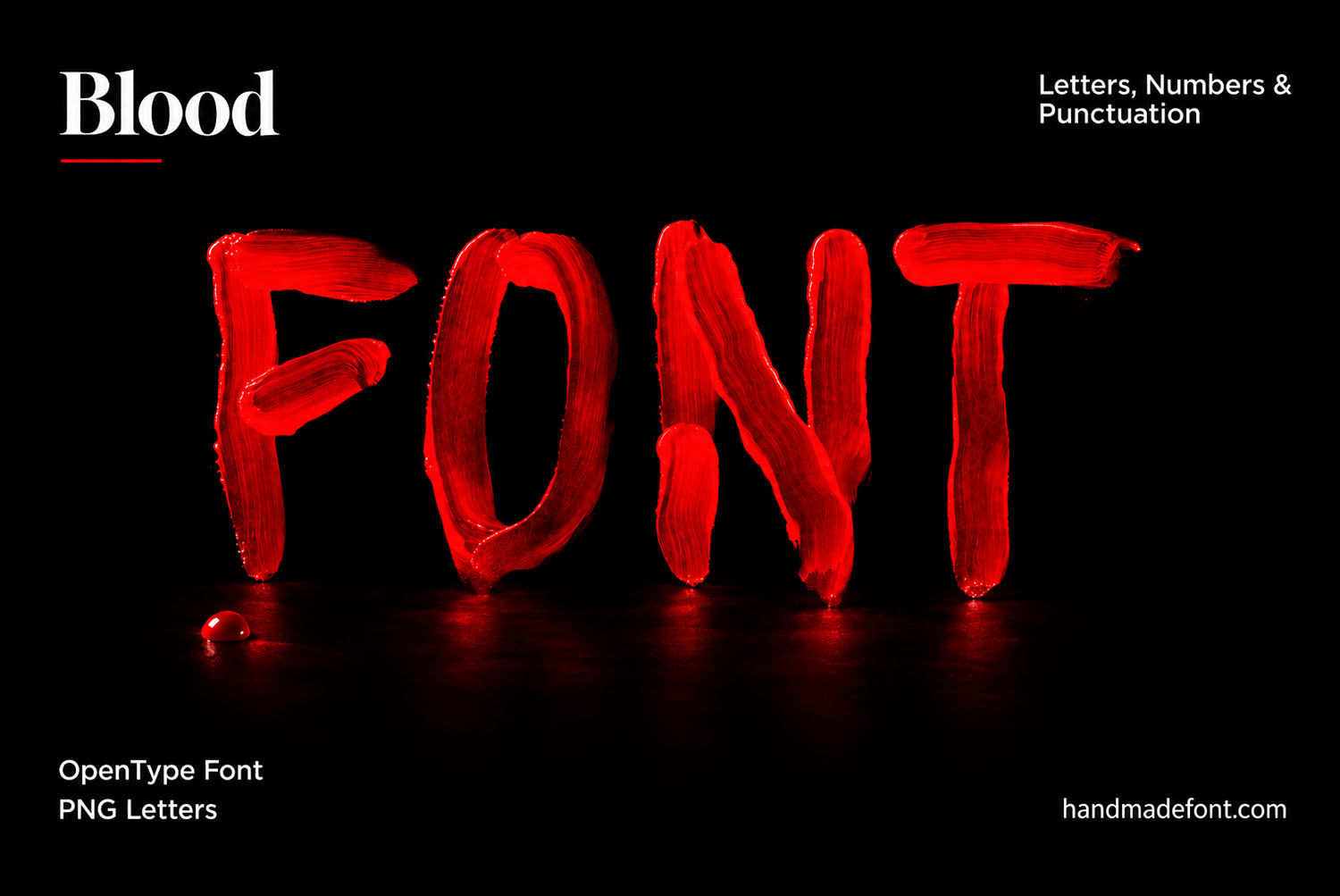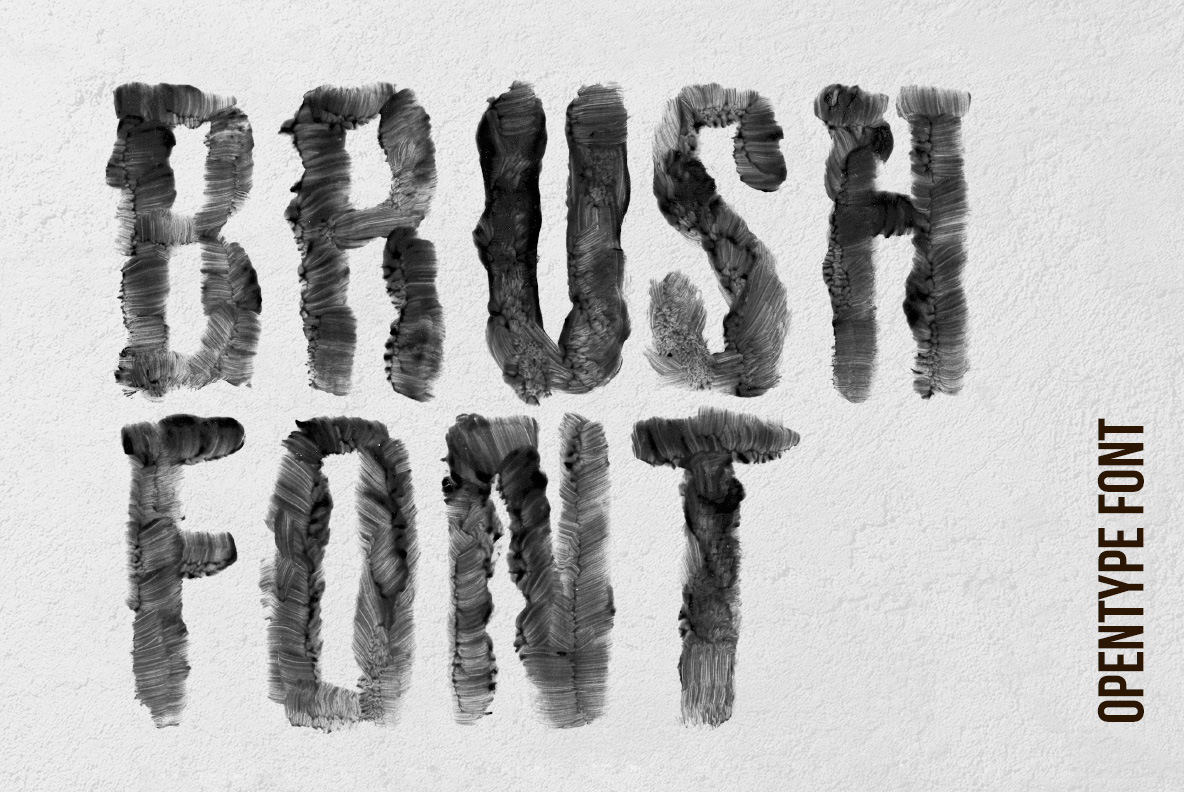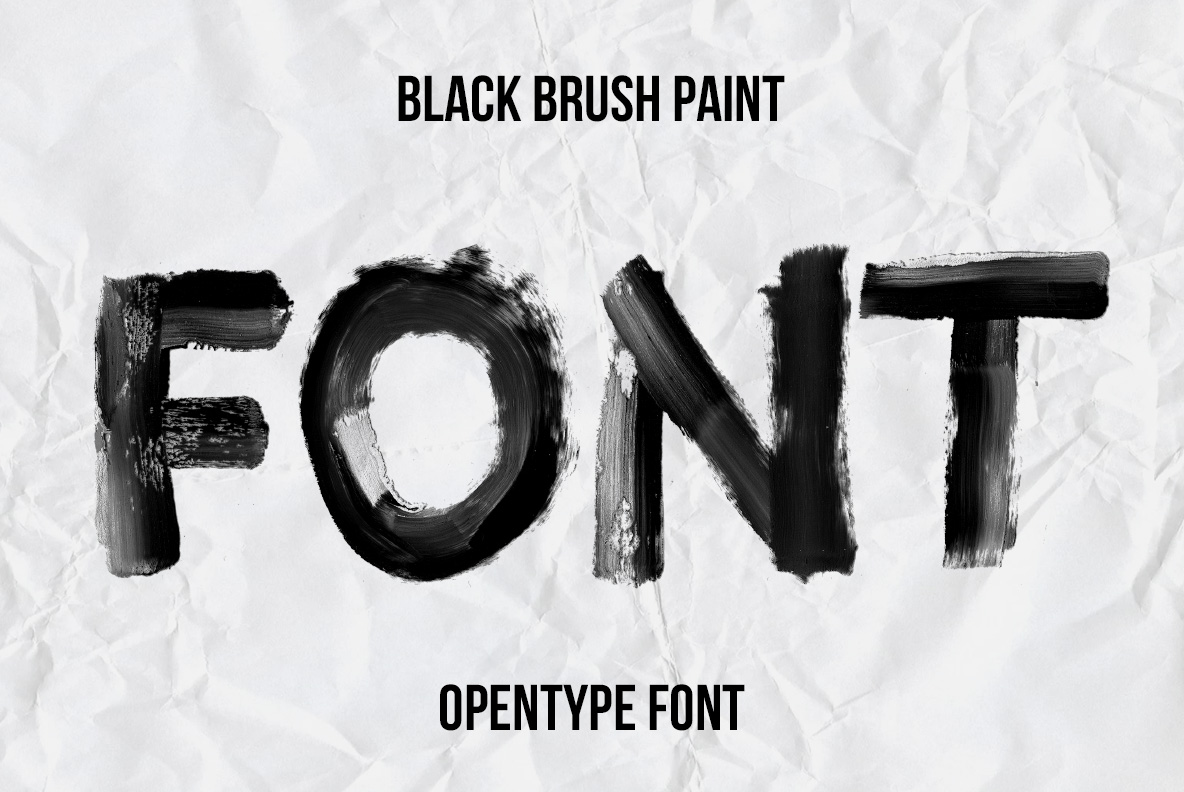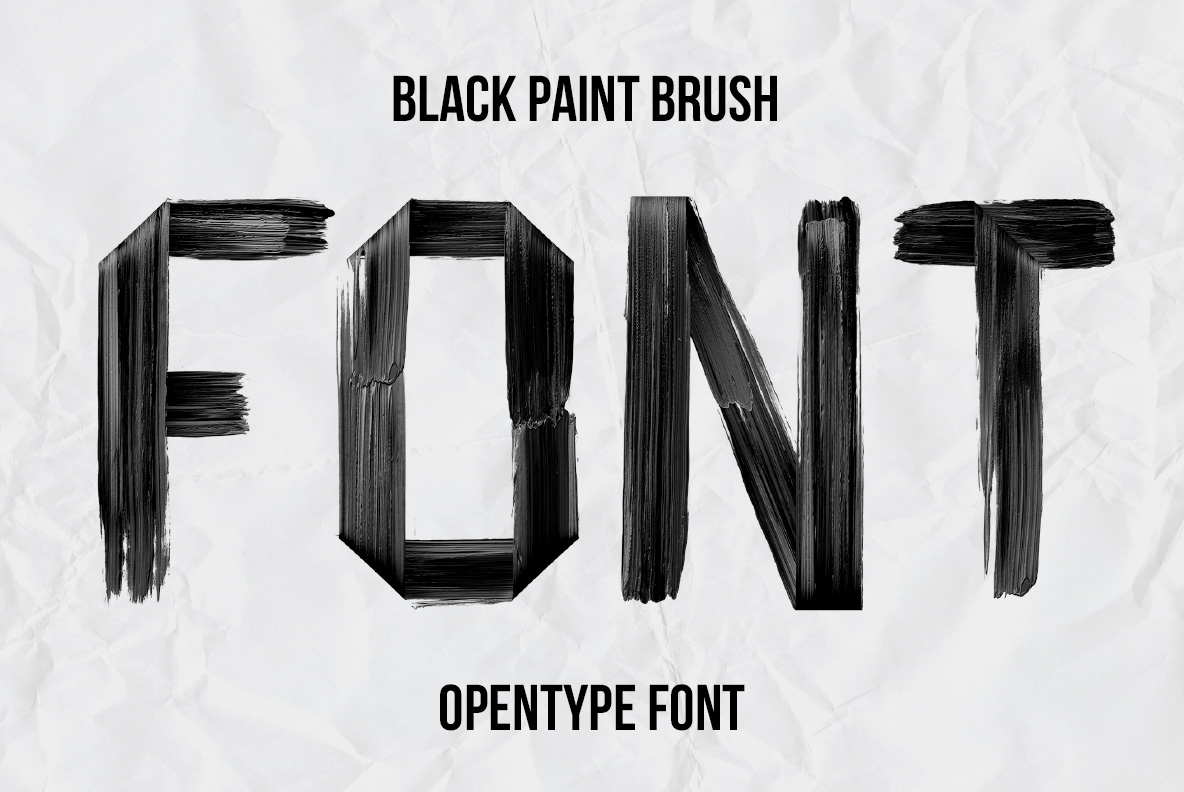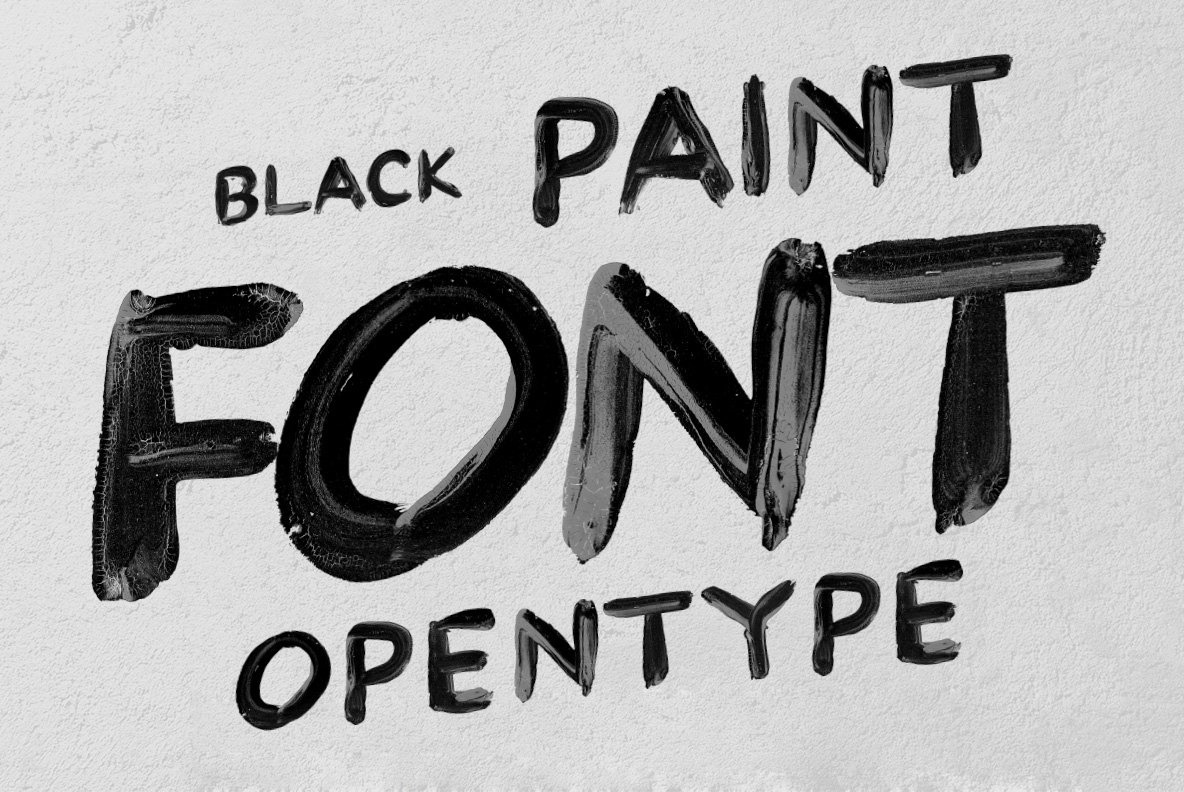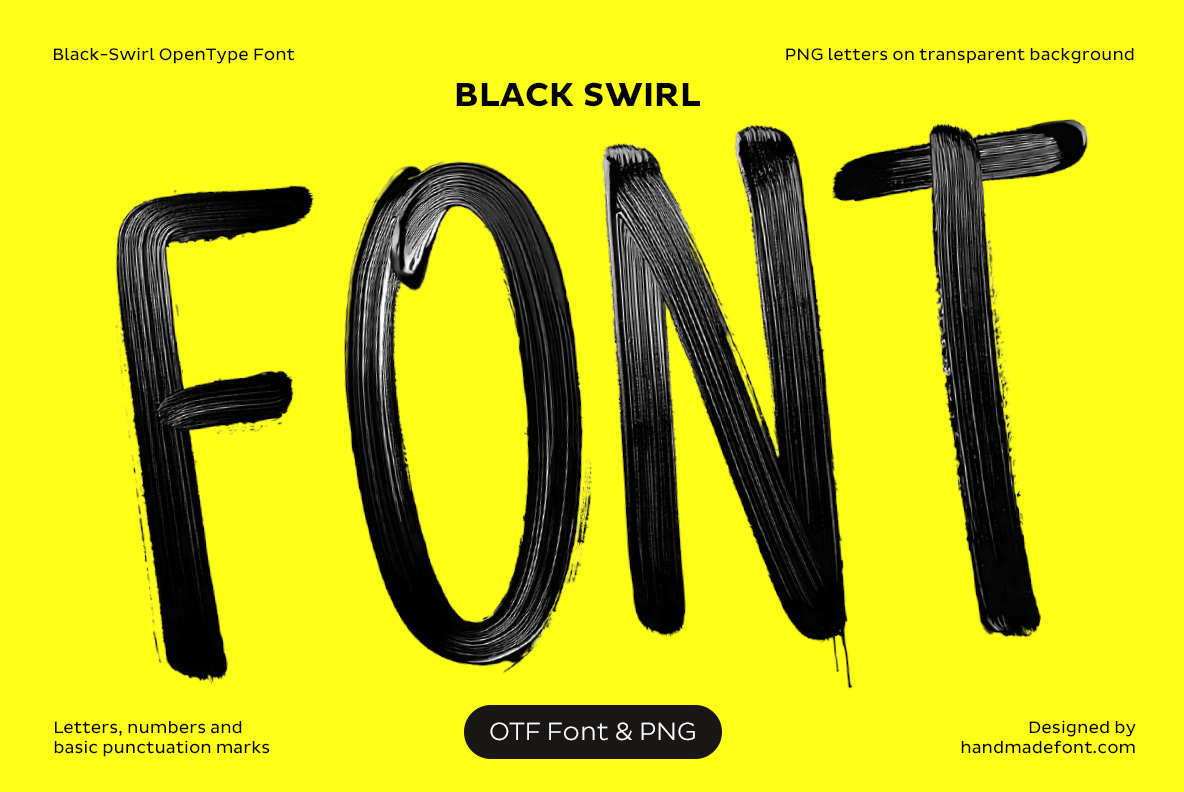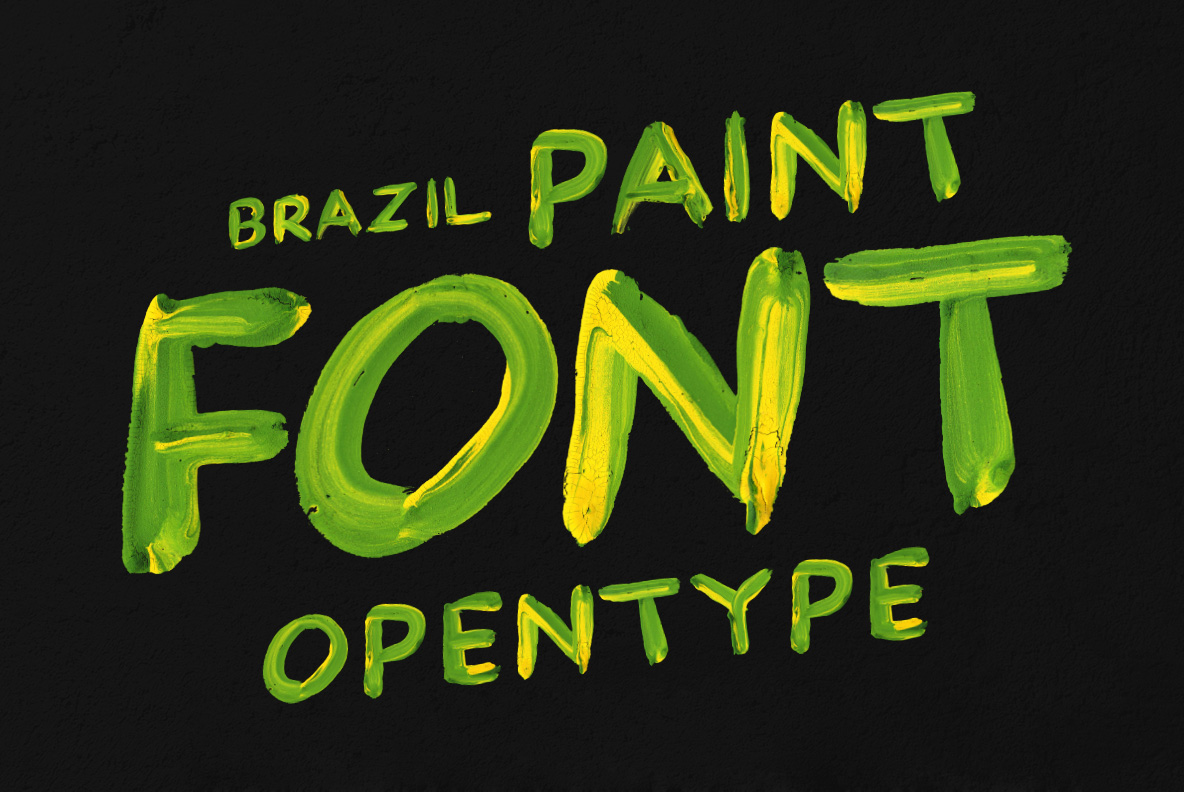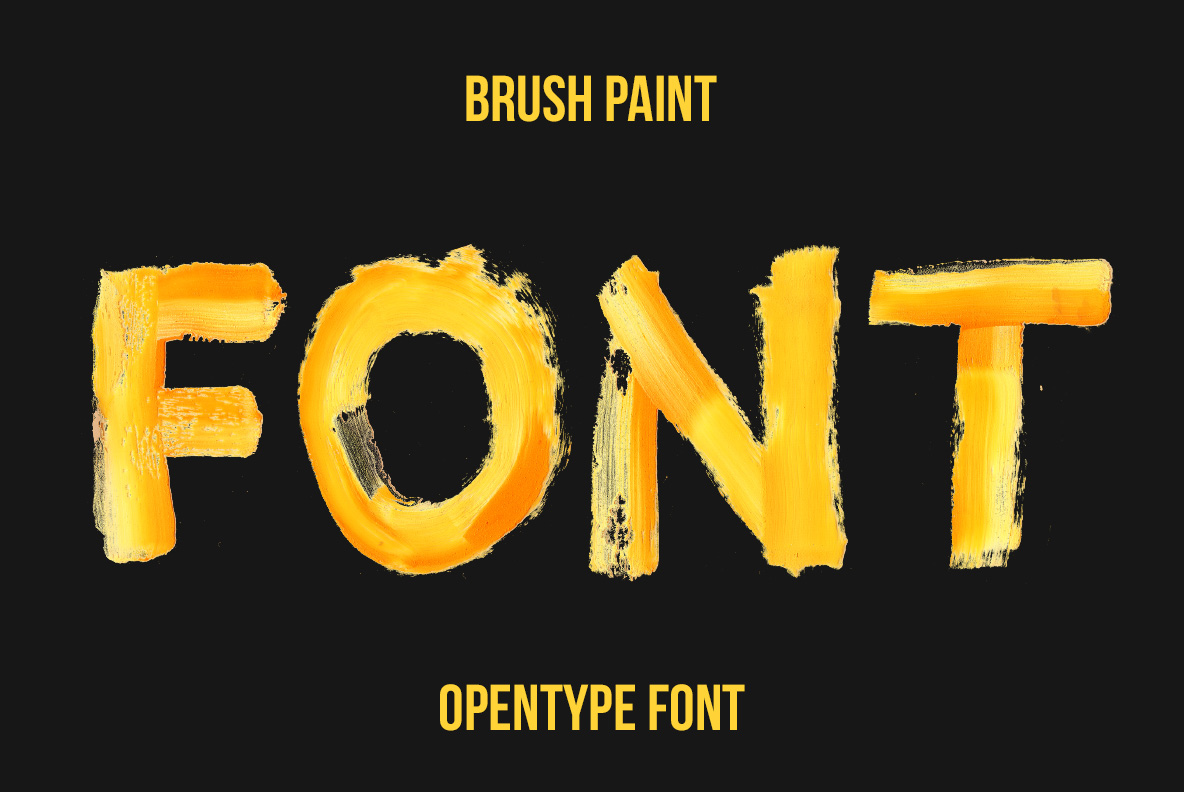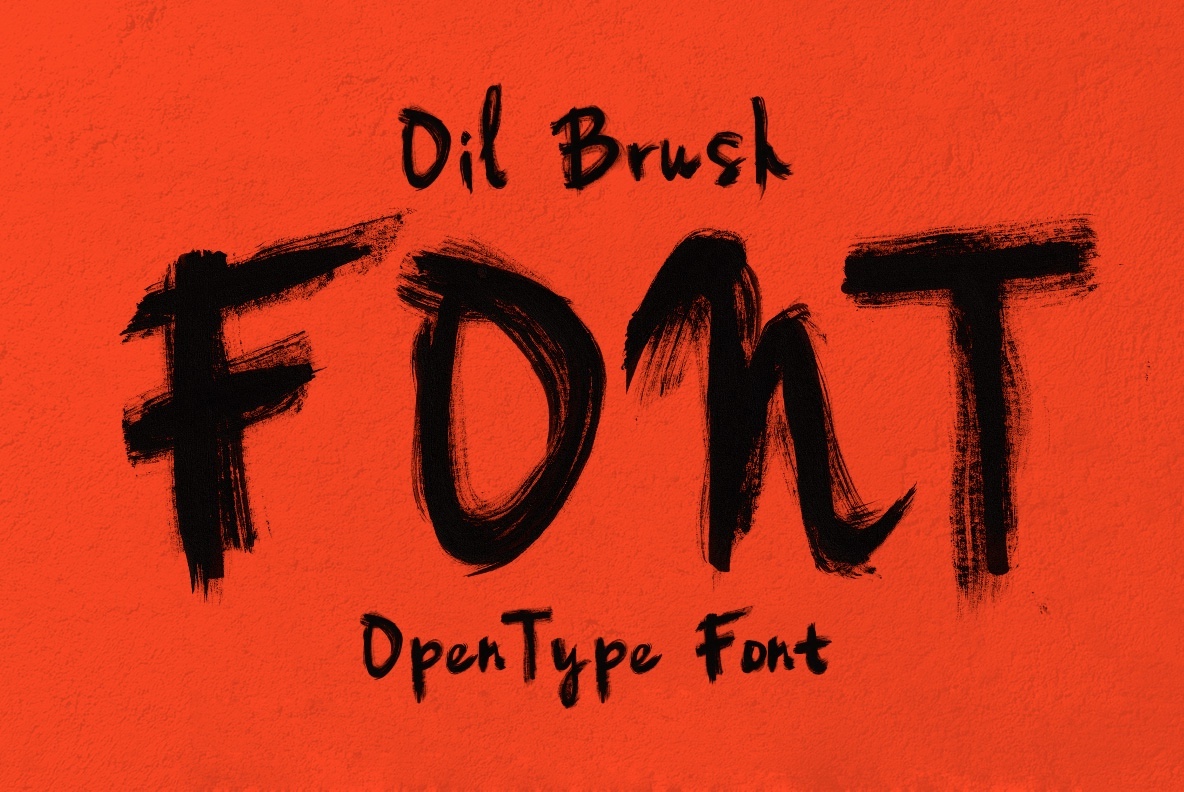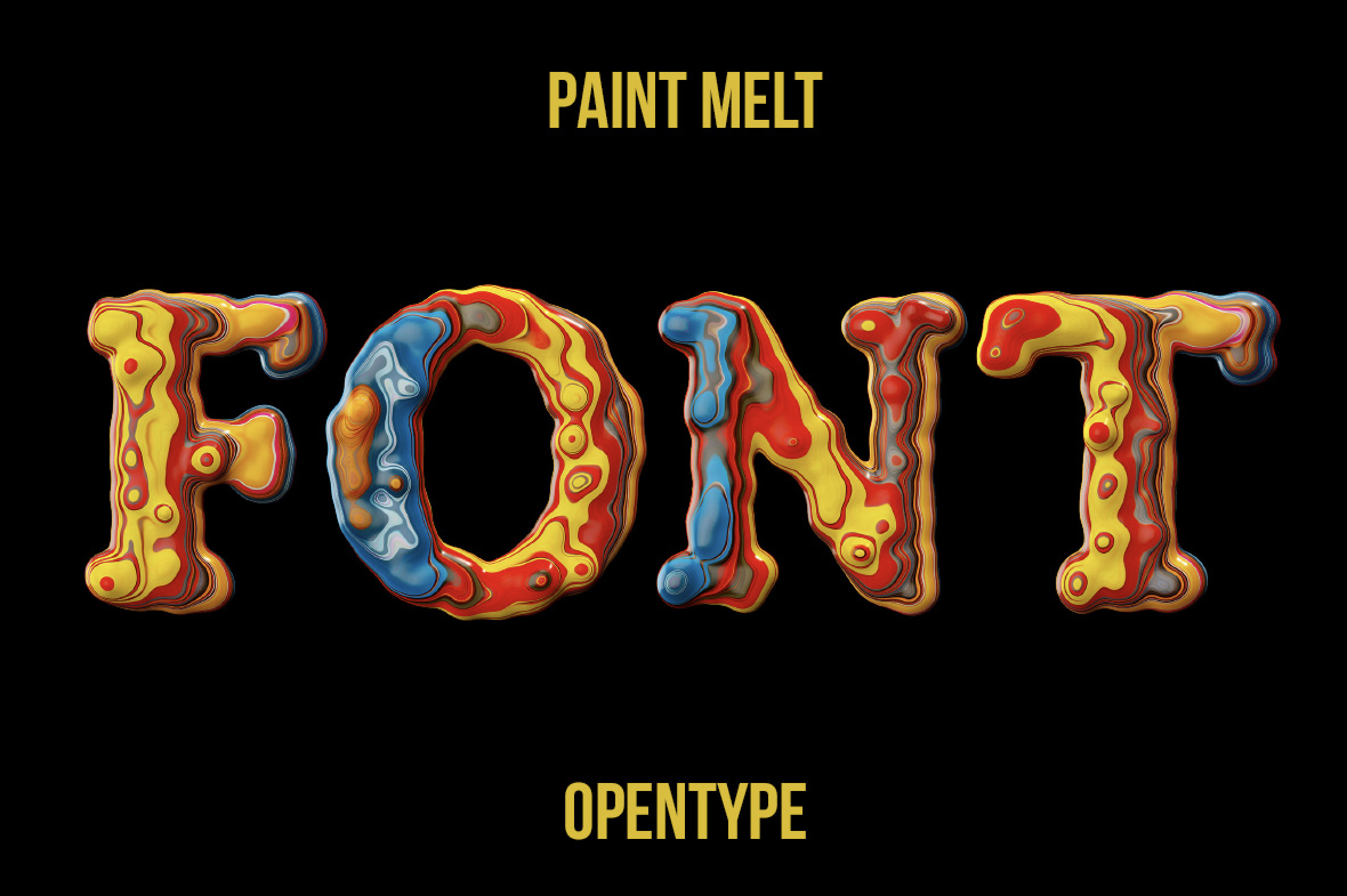
Paint Fonts – Brush Stroke & Artistic Typefaces
Paint Fonts turn every letter into a gesture. This collection transforms brush strokes, oil paint, liquid color, black pigment and metallic paint into expressive object-based typography. From bold monochrome lettering to colorful, dripping and fluid styles, these fonts are made for posters, branding, packaging, editorial graphics and creative display design.
Paint Fonts are the collection where the hand shows. A brush runs out of paint halfway through a stroke, bristles leave tracks, an edge feathers into the paper, a drip gets away down the stem of a letter. None of that is tidied up afterwards, because the mess is the reason you would use one of these instead of a clean typeface.
One Brush, One Pass, No Undo
Black Brush Font with expressive black painted letterforms
Black Brush Font
Dry brush dragged across the paper, more gap than paint in places.
Oil Brush Font with thick textured painted letters
Oil Brush Font
Thick black oil on hot orange, bristle tracks visible in every stroke.
Black Swirl Font with flowing black paint letterforms
Black Swirl Font
Fat looping strokes on acid yellow, ends whipped to a point.
Golden Flow Font with flowing gold painted letterforms
Golden Flow Font
Molten gold poured into the letterforms and left to set.
Masterpiece Font featuring expressive painterly letterforms
Masterpiece Font
Ribbons of paint twisted into three dimensions, red over ochre.
Paintbrush Font with handcrafted brush stroke letters
Paintbrush Font
One loaded brush, several colours, dragged through in a single pass.
Black Paint Font with bold handmade brush stroke typography
Black Paint Font
Flat black on rough paper, edges feathering where it soaked in.
Brush Paint Font with expressive hand-painted letterforms
Brush Paint Font
Yellow poster paint on black, brushed thick and deliberately uneven.
Brazil Paint Font with colorful painted brush lettering
Brazil Paint Font
Green and white strokes crossing each other at speed.
Black Brush Paint Font with textured black painted letters
Black Brush Paint Font
Heavy black on creased paper, strokes stopping dead where the brush ran out.
Black Paint Brush Font featuring natural black brush strokes
Black Paint Brush Font
Dry-brush capitals with bristle streaks running right through them.
Paint Melt Font with flowing and melting painted letterforms
Paint Melt Font
Red and blue running together inside the letter, still wet.
Blue Paint Stroke Font with vivid blue brush stroke letters
Blue Paint Stroke Font
Cobalt on white, each stroke laid down in one confident sweep.
Gold Paint Stroke Font with metallic golden brush strokes
Gold Paint Stroke Font
Gold brushwork with flecks thrown off the end of the stroke.
Melt Black Paint Font with dripping and flowing black letters
Melt Black Paint Font
Black paint sagging and dripping off the bottom of every letter.
Black Paint Stroke Font made from bold black brush strokes
Black Paint Stroke Font
Black on yellow, with a loose brush arc thrown right across the word.
Paintbrush Flow Font with fluid artistic brush lettering
Paintbrush Flow Font
Thin nervous strokes on mint green, brackets included.
Brushstroke Art Font featuring artistic painted brush letters
Brushstroke Art Font
A painted serif: proper letterforms, but every edge is brush.
Rainbow Brush Font with colorful layered brush stroke letters
Rainbow Brush Font
Magenta, cyan and yellow loaded on one brush and pulled together.
Dark cover with the word FONT painted in the Blood Font
Blood Font
Bright scarlet on black, one pass per letter, thinning wherever the hand lifted.
Paint Fonts for Anything That Should Look Hand-Made
Music is the natural home: gig posters, album sleeves, festival line-ups, band merchandise. Streetwear and skate brands take the rougher ones, while galleries, art schools and studio identities prefer the controlled strokes. They also work hard in editorial, where one painted headline carries a whole spread. Worth remembering, though — the wetter and drippier the face, the fewer words it can take. Three is usually the limit.